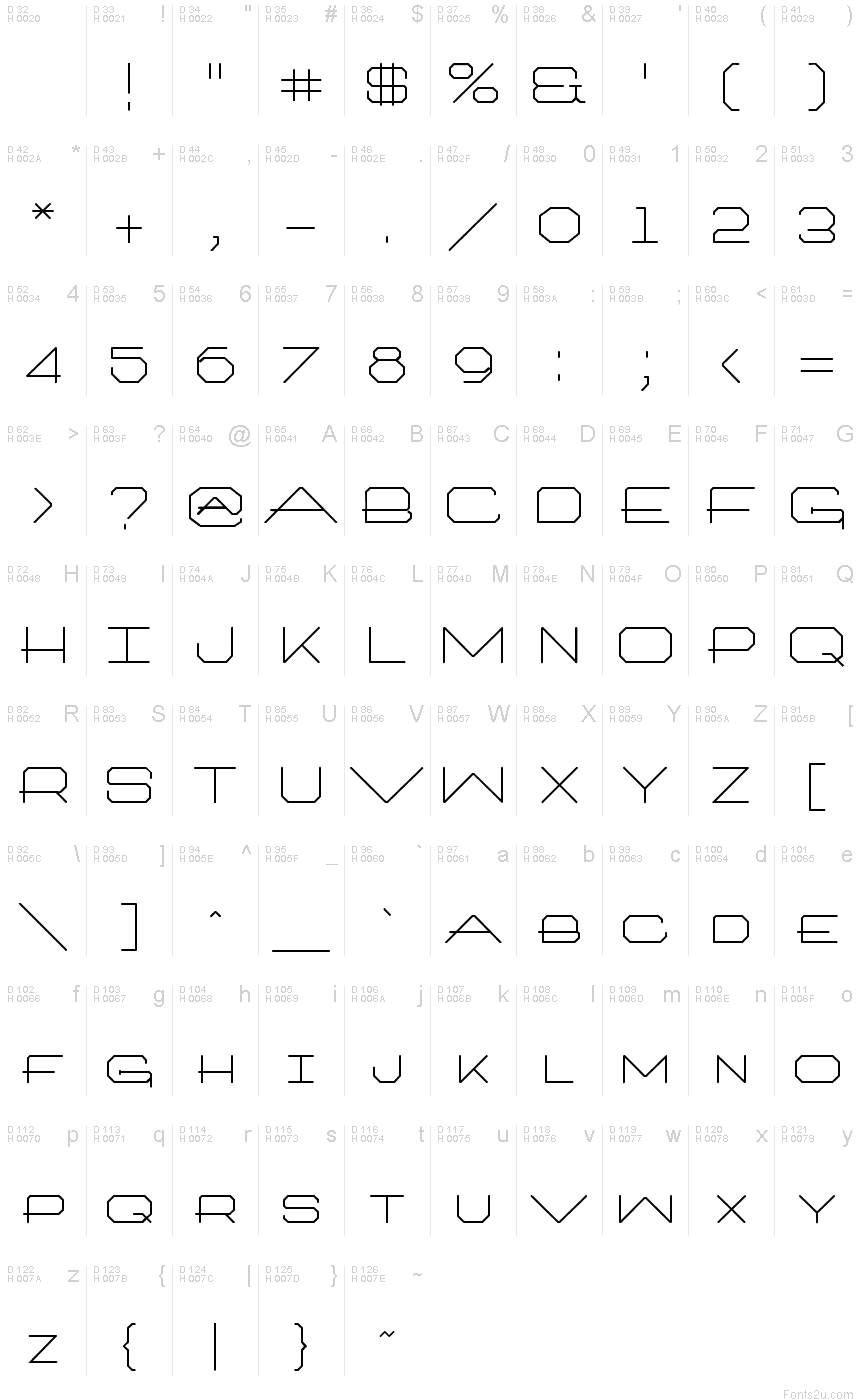
Artlookin Regular
Artlookin font by S.G. Moye is a free modern typeface that turns every word into a sleek wireframe sculpture. Its ultra-clean monoline strokes, sharp corners, and octagonal curves feel like neon tubing bent with precision, giving text a cool, architectural edge without feeling cold. Wide spacing and airy interiors keep even dense words readable, so the shapes feel bold yet weightless on the page or screen.
Using Artlookin, this free font shines on futuristic logos, gallery posters, music artwork, fashion branding, tech event graphics, packaging, and striking headlines. Pair Artlookin with a simple geometric sans set in solid weights for body copy, and let this typeface run large for maximum impact.